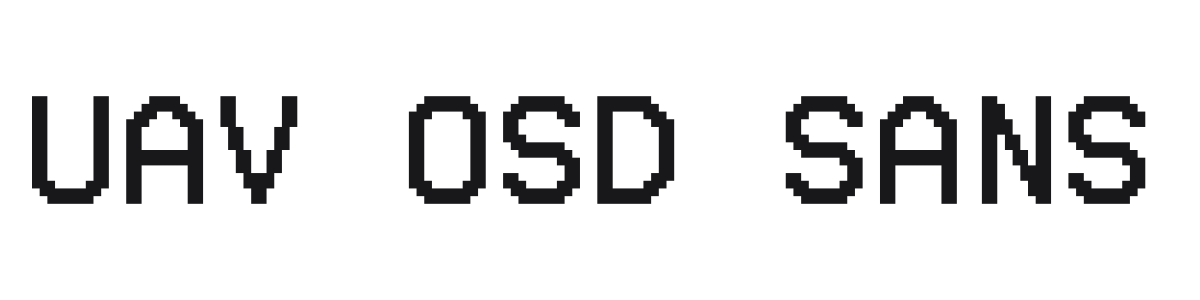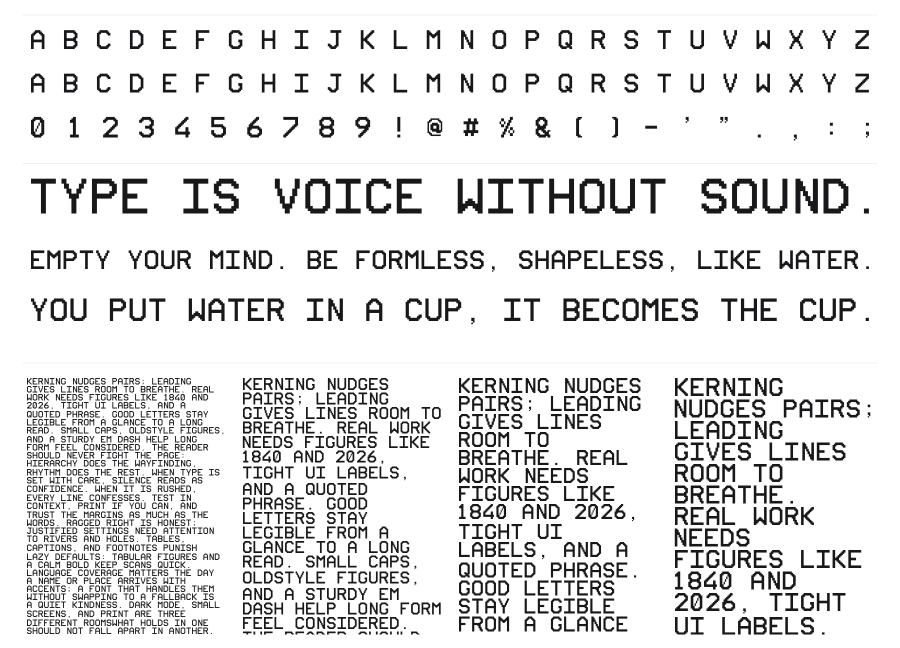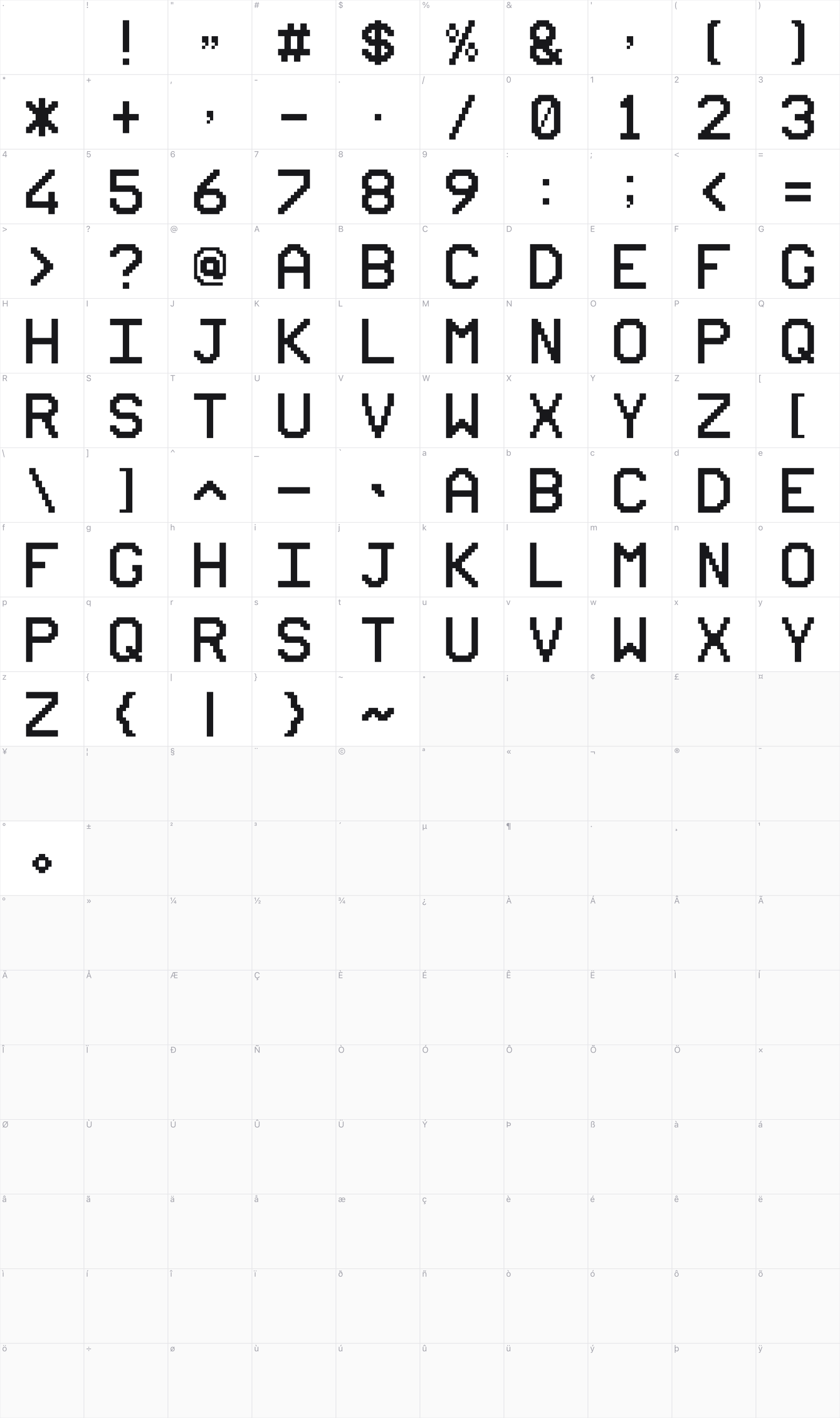
UAV OSD Sans
UAV OSD Sans is a bitmap pixel font modeled after the on-screen display graphics used in drone and UAV flight systems. Every character is built on a visible pixel grid with hard square terminals and uniform weight, giving it an authentic readout quality. It fits naturally into HUD interfaces, military-themed design, gaming UI, and any project that needs a raw digital aesthetic.